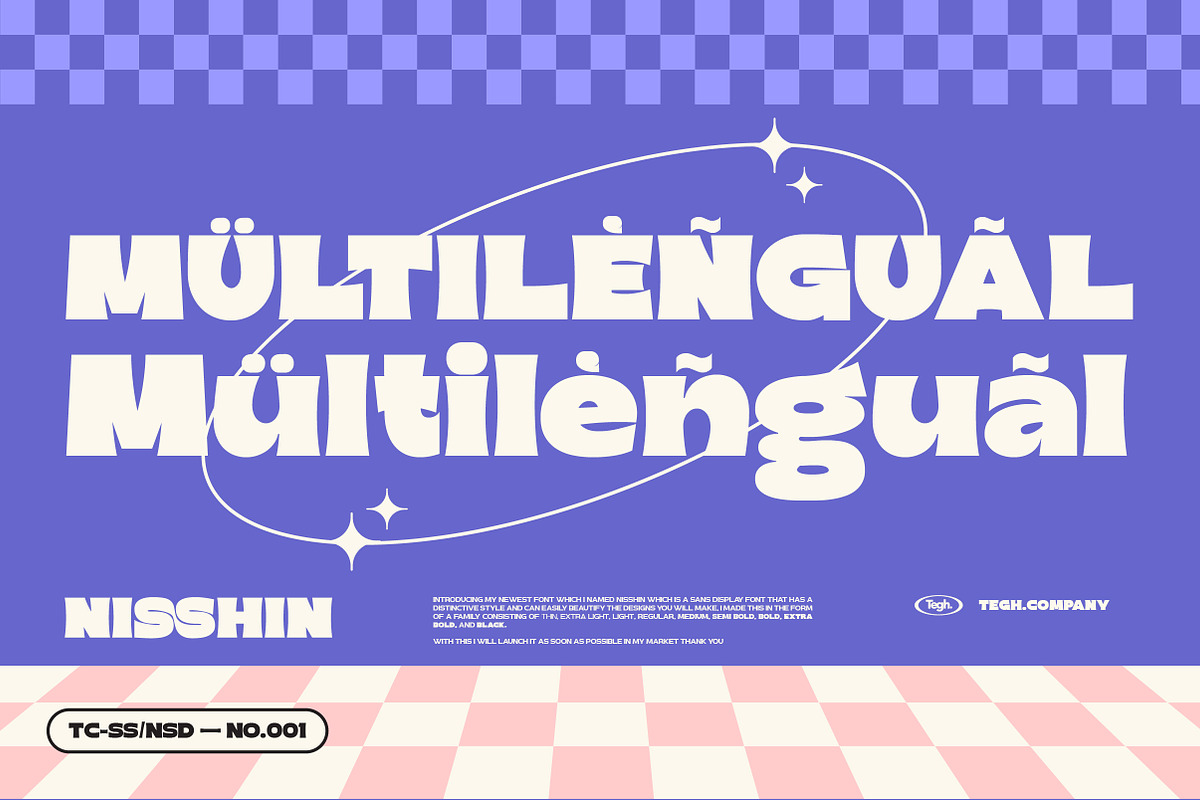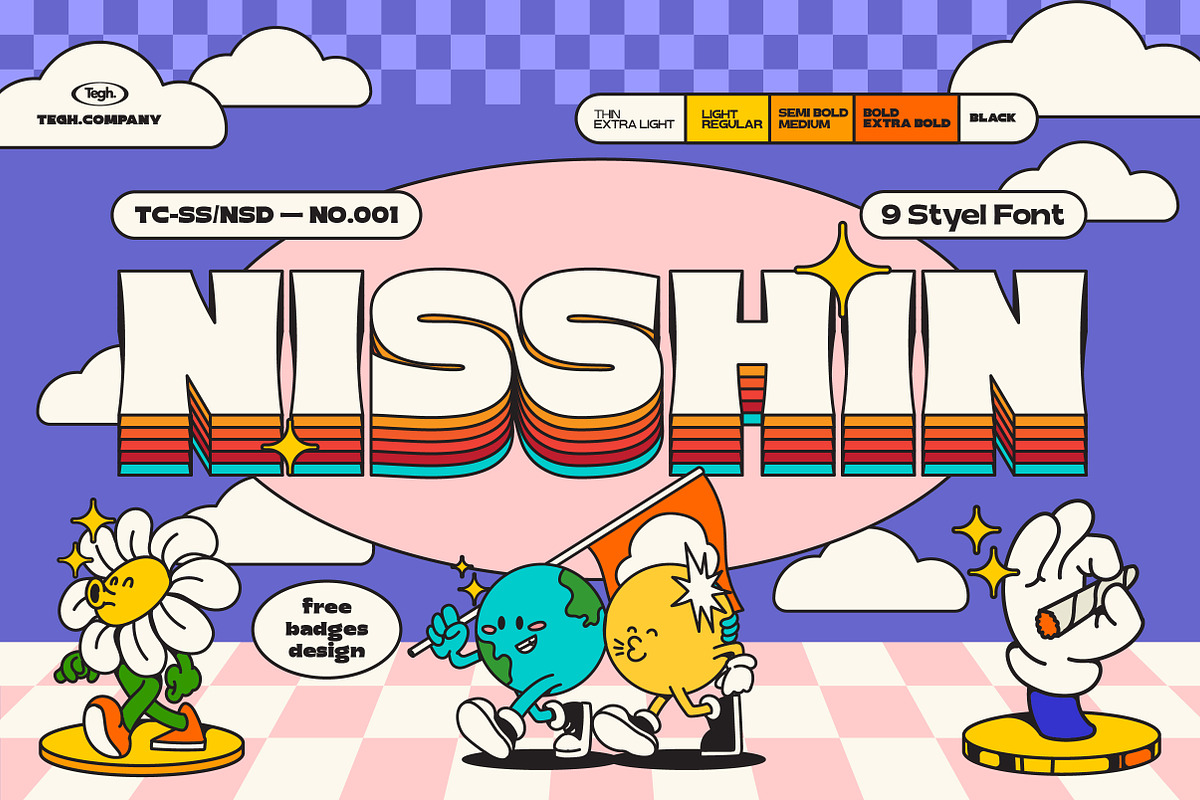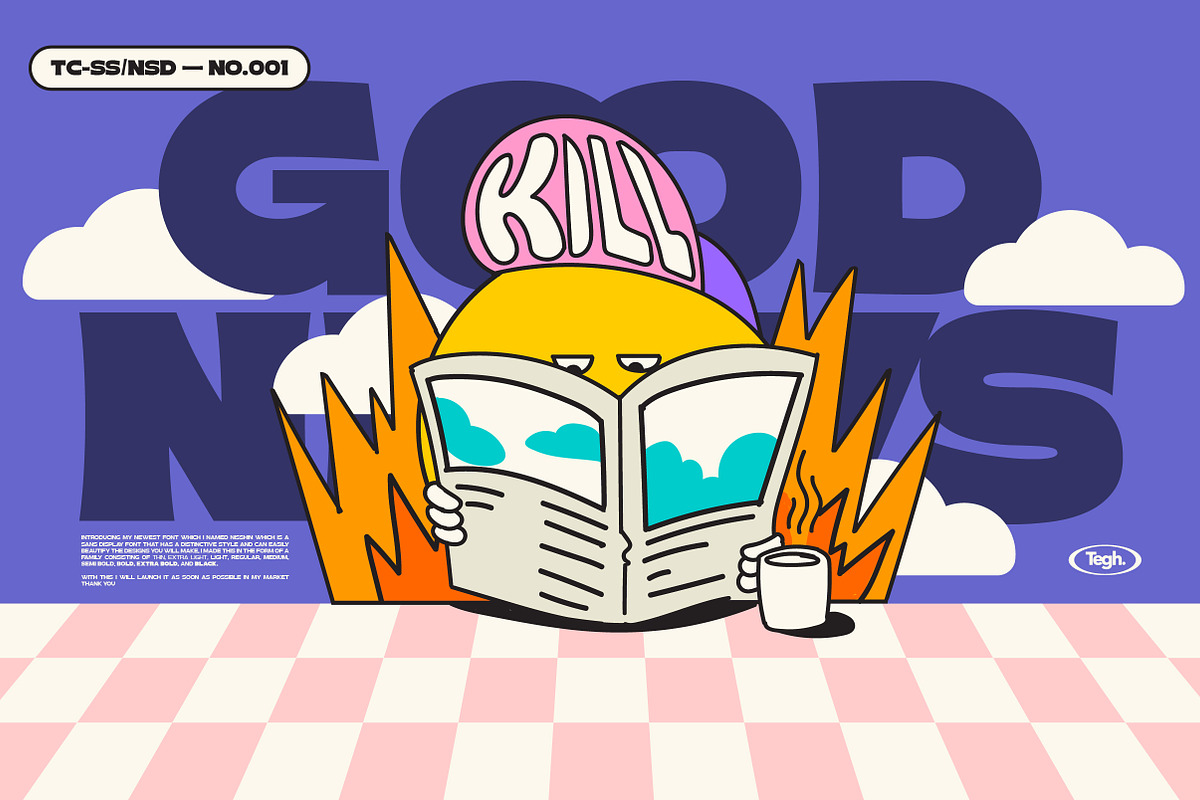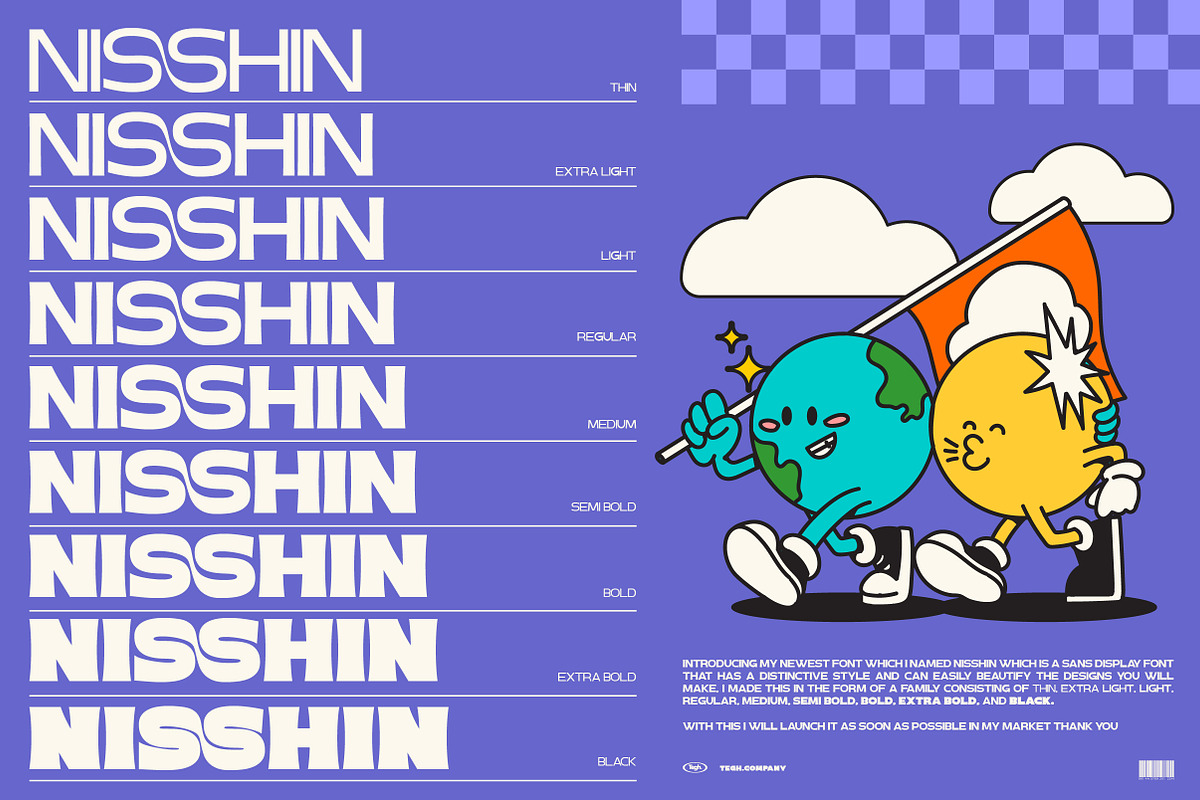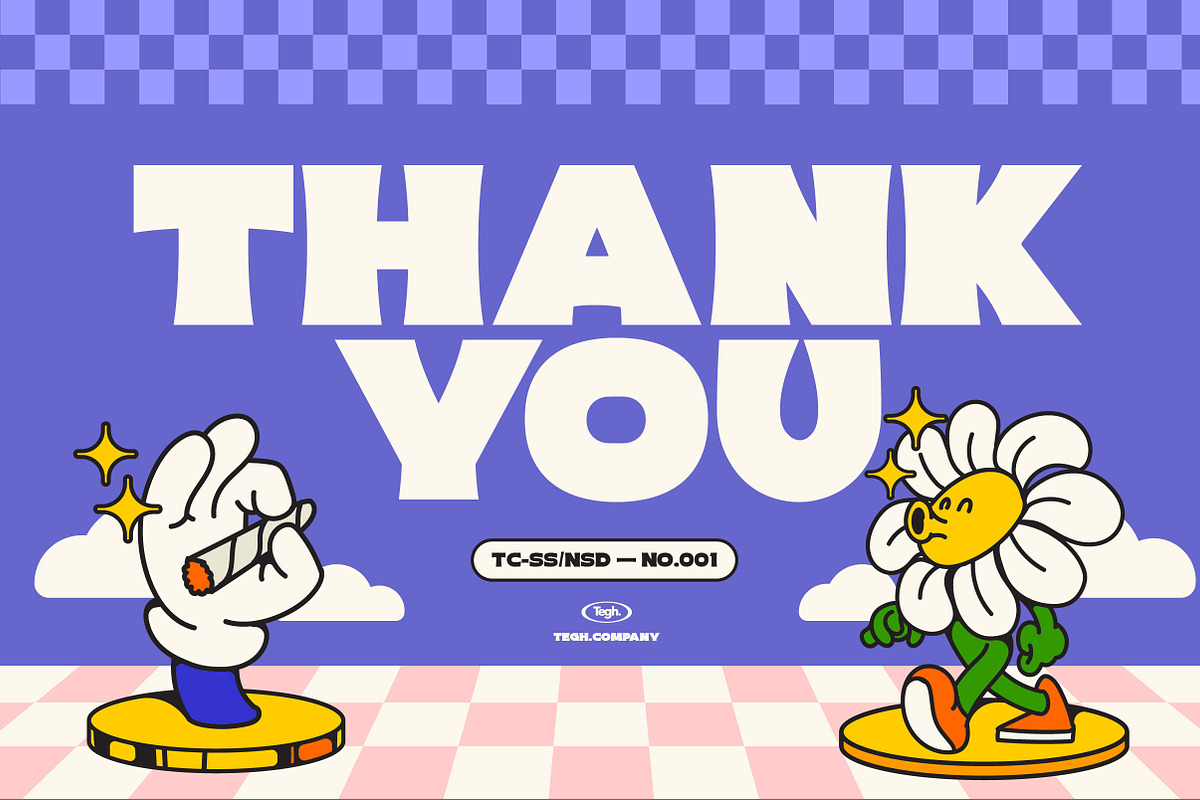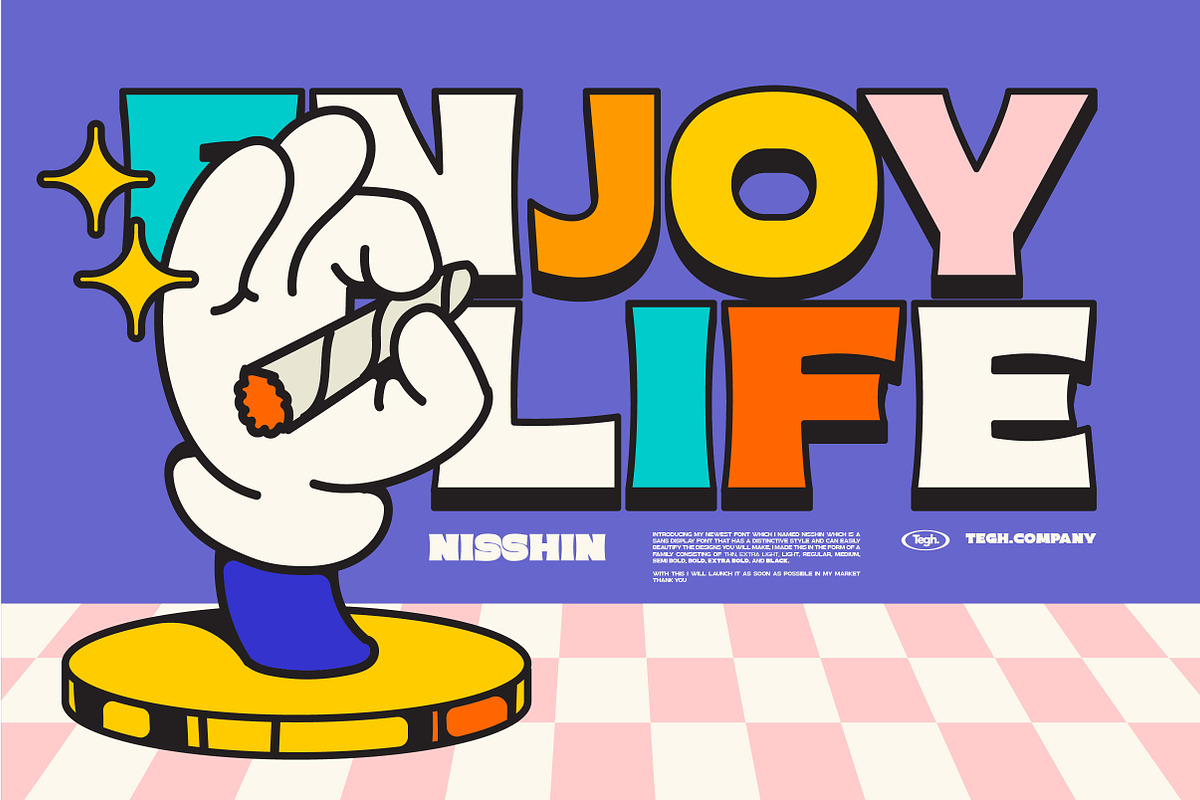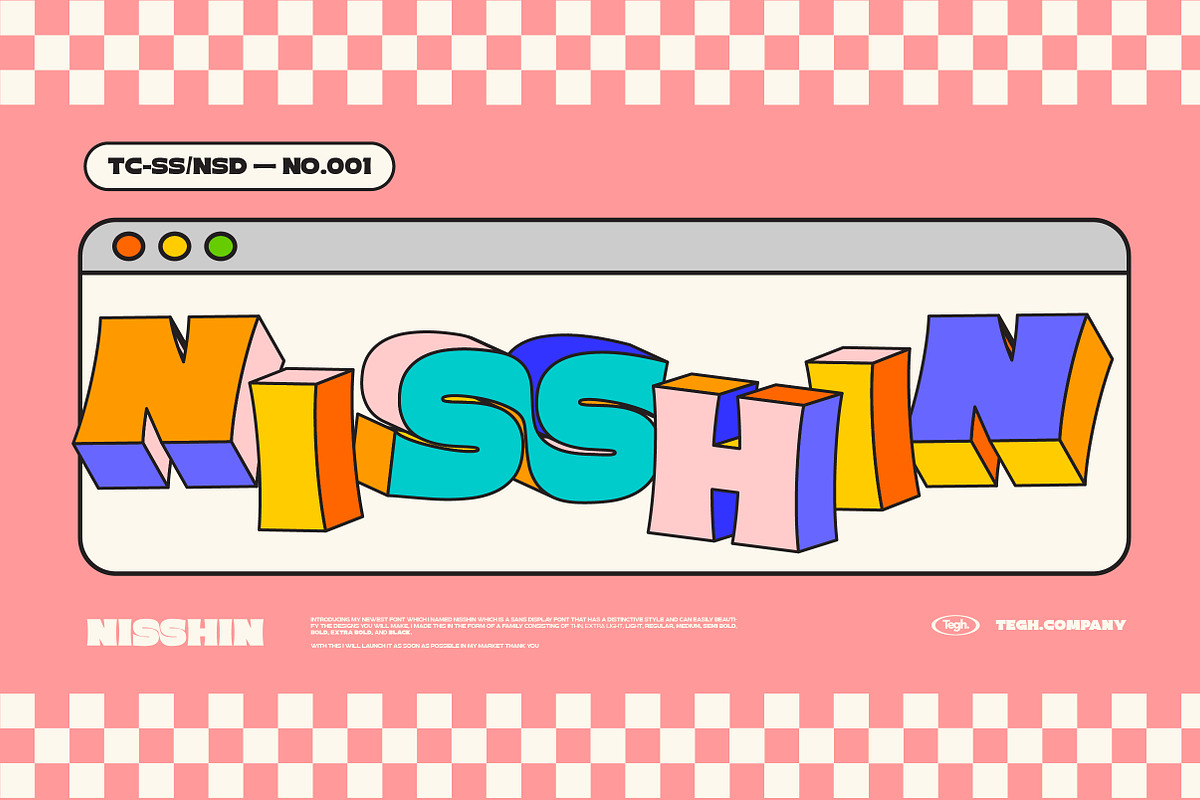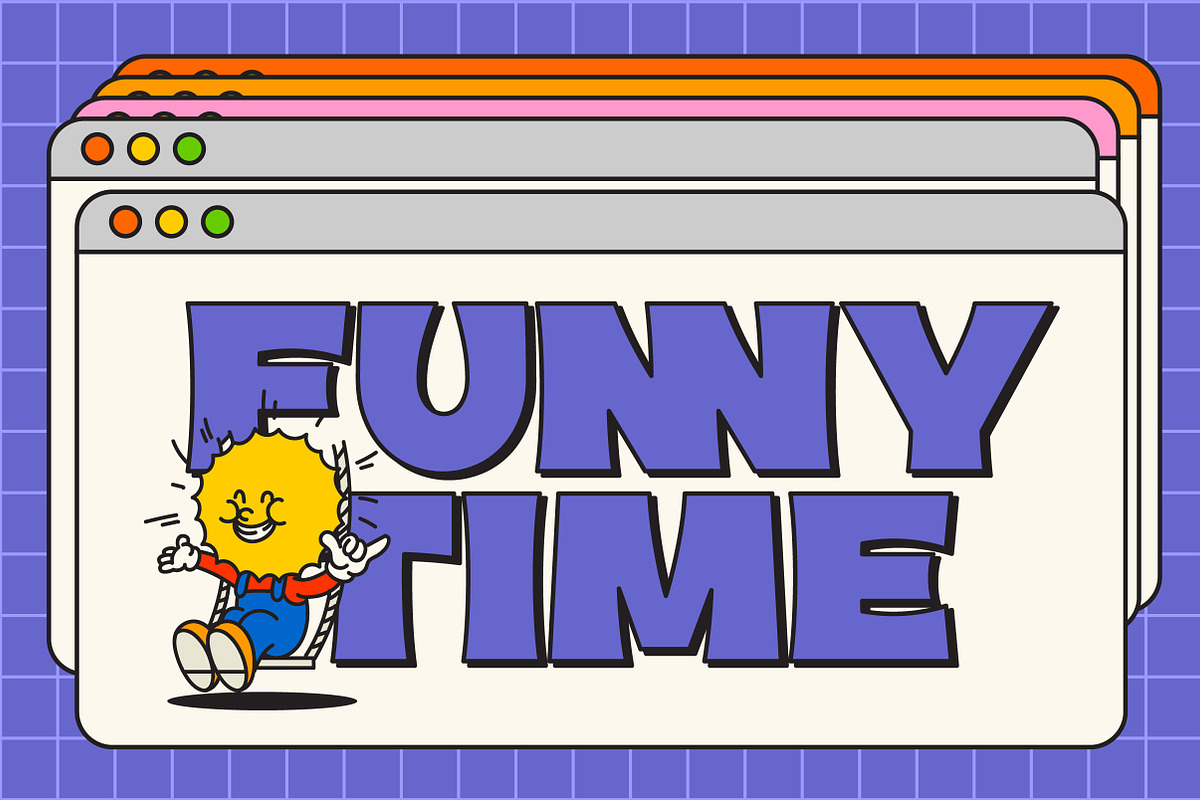
Nisshin Sans Display
Introducing my newest font which I named nisshin which is a sans display font that has a distinctive style and can easily beautify the designs you will make, I made this in the form of a family consisting of Thin, Extra light, Light, Regular, Medium, Semi bold, Bold, Extra bold, and Black.